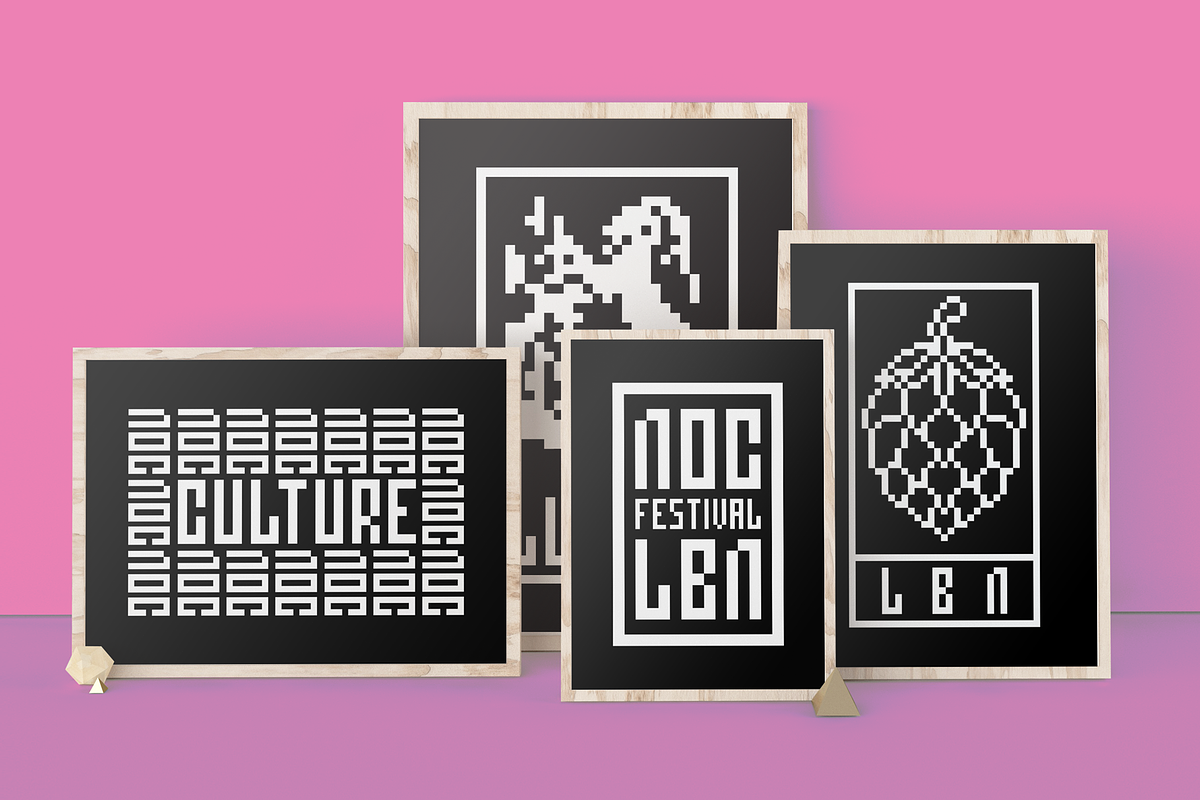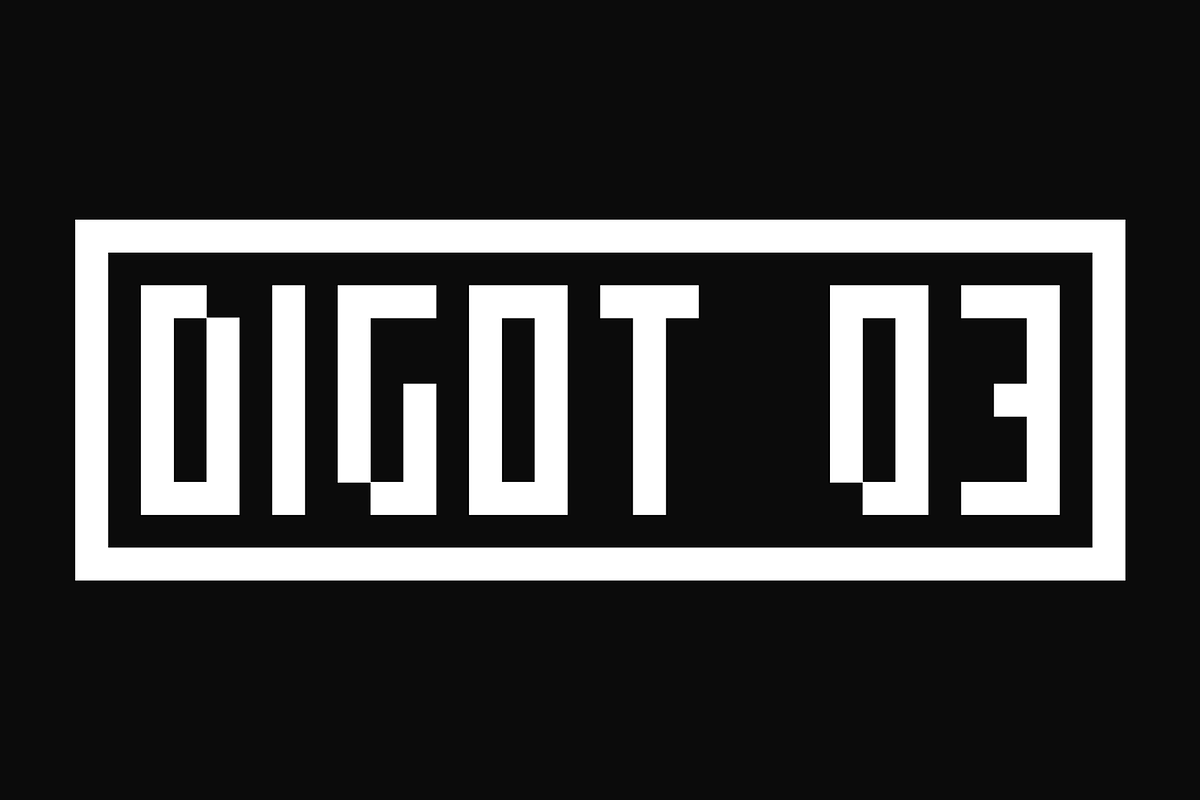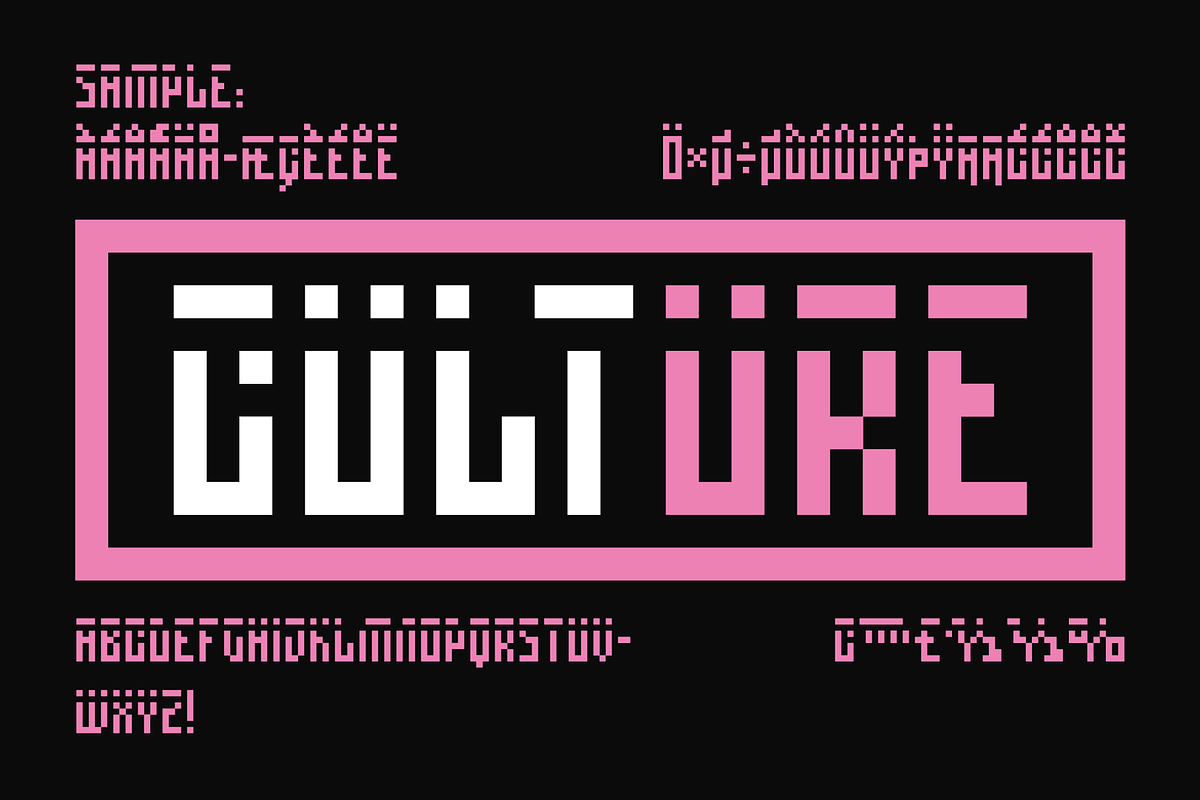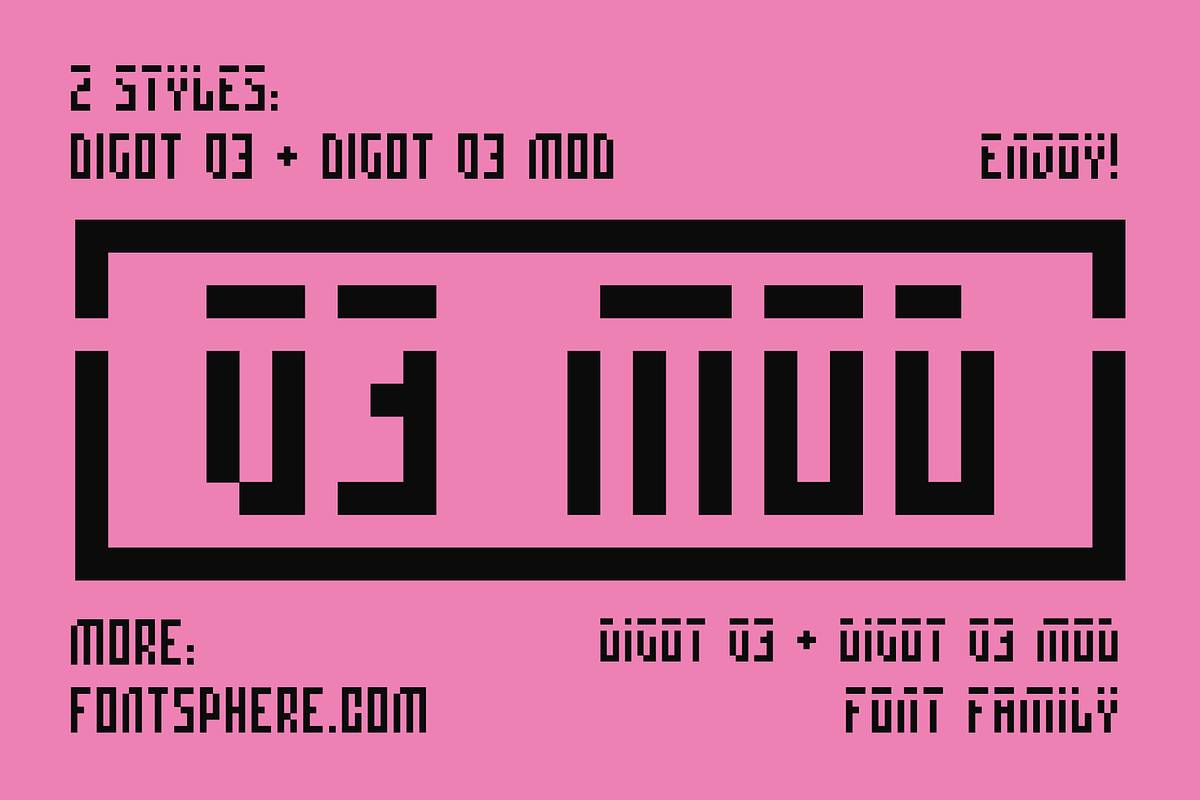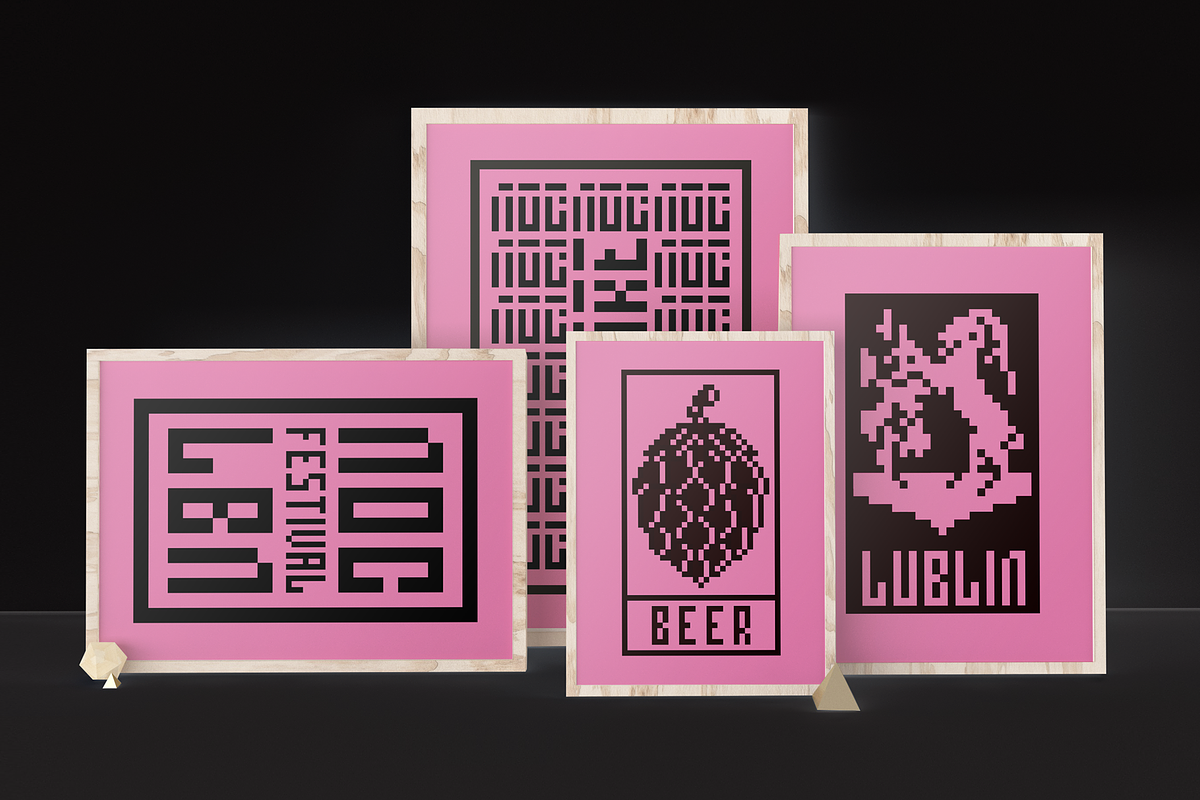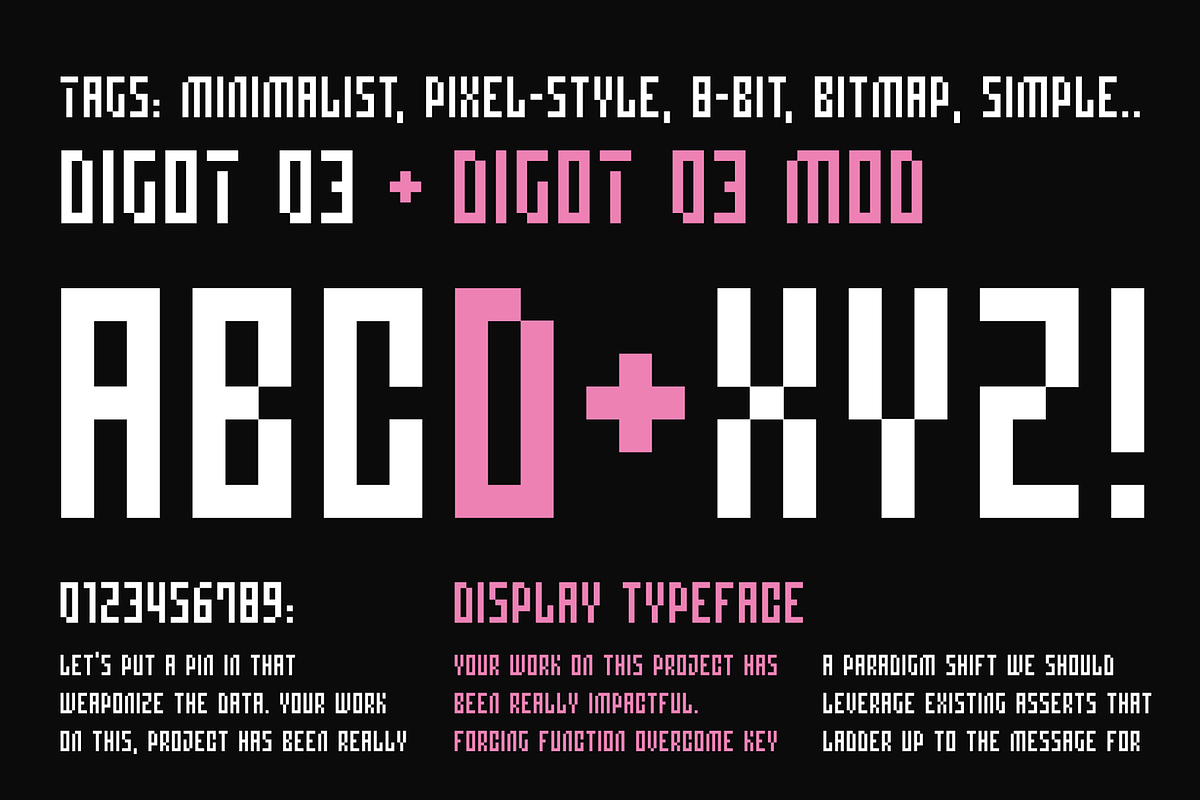
DIGOT 03 & DIGOT 03 MOD
DIGOT 03 is an innovative two-font family that blends minimalism and geometric precision to create a visually striking and modern design. These fonts are perfect for those seeking a clean and contemporary look for their projects.
Usage Recommendations
DIGOT 03 is a font that thrives in environments where simplicity and clarity are valued. It works exceptionally well in both digital and print formats. Consider using DIGOT 03 in the following situations:
Web Design: DIGOT 03 can add a touch of modernity to website designs, providing a clean and contemporary experience for users.
Poster Design: Whether creating event posters or advertising material, DIGOT's bold and eye-catching letterforms make it a perfect choice for grabbing attention.
Logo Design: This font, despite its very experimental approach, can help establish a strong and memorable brand identity. Its simplicity allows the logo to be easily recognizable and versatile across various marketing channels.
Iconography: As DIGOT 03 is built upon geometric principles, it excels in creating visually appealing icons and symbols that follow the same minimalist style.
DIGOT 03 is the perfect font for designers and creatives who appreciate simplicity and have a keen eye for detail. With its unique minimalist geometric style, DIGOT offers endless possibilities for creating clean and impactful designs.